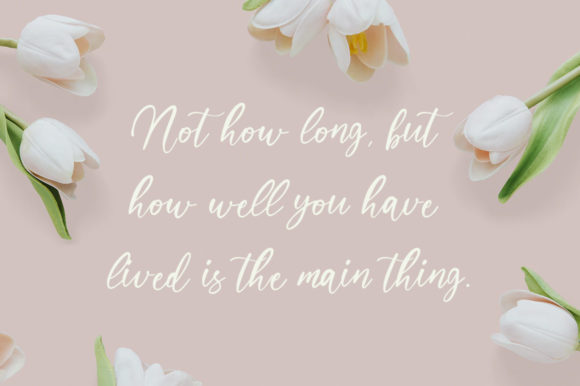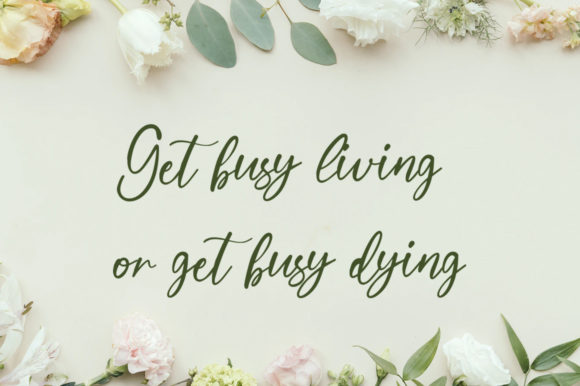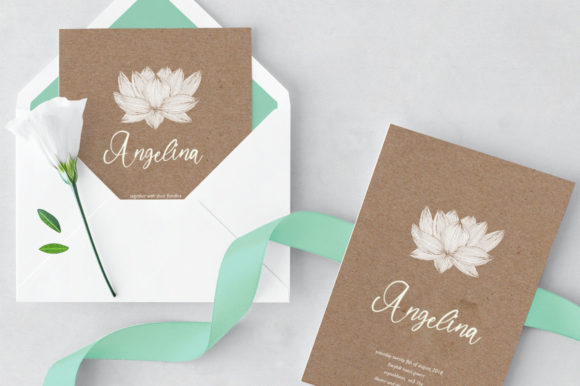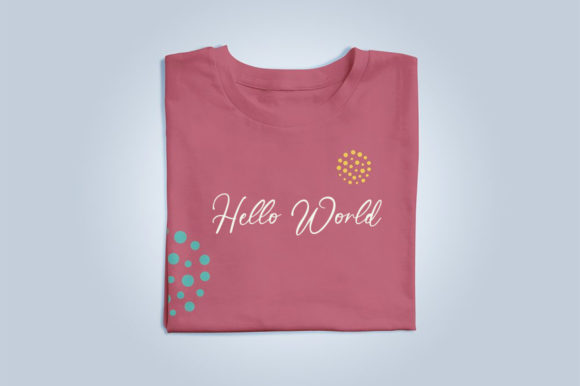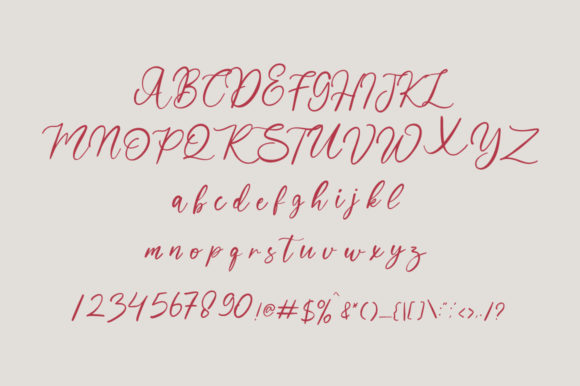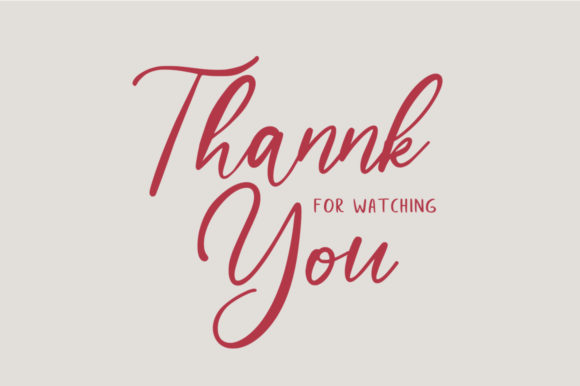
Introduction to Rabelan Font
As a designer, there’s nothing quite like the thrill of bringing a creative project to life. The moment when all the elements come together, and your vision takes shape. It’s a feeling of pure elation, and it’s what drives us to keep pushing the boundaries of what’s possible. For those of us who live and breathe design, the quest for the perfect font is a never-ending journey. And, we’re excited to introduce you to the latest addition to your design arsenal: the stunning Rabelan Font.
This exquisite handwritten font is a masterclass in timeless elegance and authentic calligraphy. With its fancy alternates and ligatures, it’s the perfect tool to elevate your designs to new heights. Whether you’re working on a branding project, crafting a wedding invitation, or creating a logo, Rabelan Font is sure to impress.
Key Features of Rabelan Font
- High-quality design resource suitable for creative projects, offering a unique and elegant touch.
- Includes a wide range of characters, including uppercase and lowercase letters, numbers, and special symbols, making it a comprehensive design resource.
- Designed with a modern and sophisticated aesthetic, the Rabelan Font is perfect for use in logos, typography, and other creative projects.
Honest Review: Rabelan Font
As a designer, I’m always on the lookout for high-quality design resources to elevate my creative projects. Recently, I had the chance to try out the Rabelan Font, and I must say, it’s been a pleasant surprise.
- Transparency: The Rabelan Font comes with a transparent background, making it easy to place on any design without worrying about a distracting background.
- High-Quality: The font is crisp, clean, and beautifully designed, making it perfect for any creative project.
- Limited Customization: While the font is beautiful, it’s not highly customizable, which might limit its use for designers who like to tweak their fonts.
- Not Ideal for Long Texts: The font is best suited for headings and short text, as it can become difficult to read when used for longer blocks of text.
Overall, the Rabelan Font is a great addition to any designer’s toolkit. While it has some limitations, its high-quality design and free download make it a worthwhile resource for any creative project.
How to Use Rabelan Font
Some tips for getting the most out of Rabelan Font include using it for headings and titles, and combining it with other high-quality fonts for a unique look. Common use cases for Rabelan Font include social media graphics, presentations, and documents, as well as creative projects such as logos and branding materials.